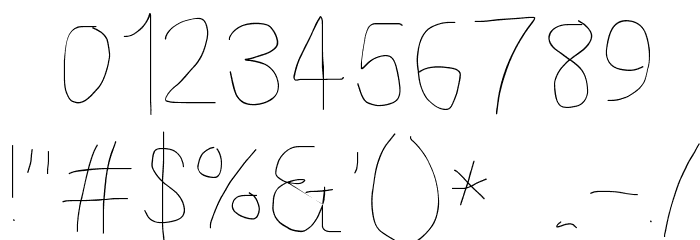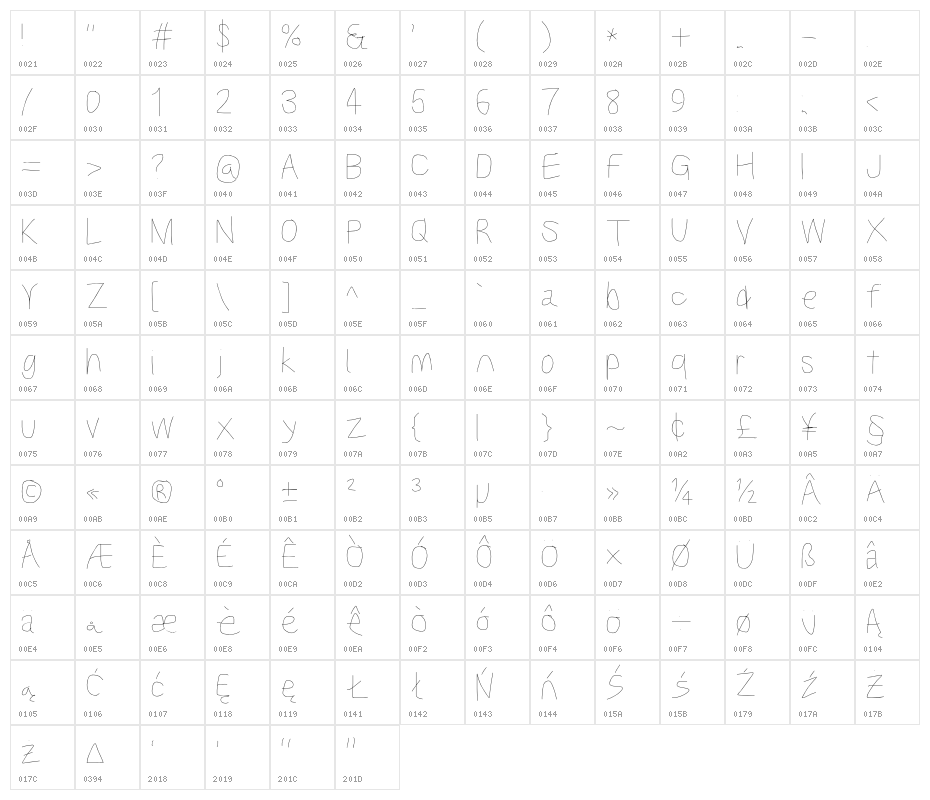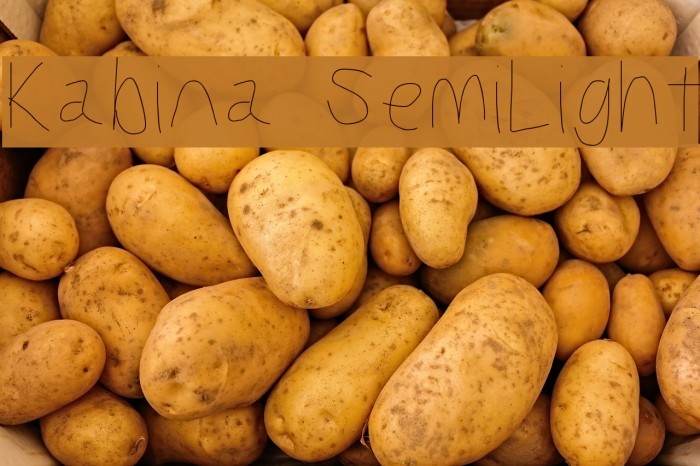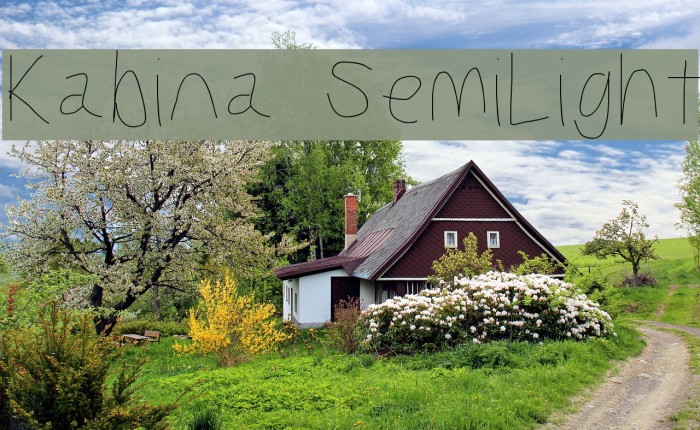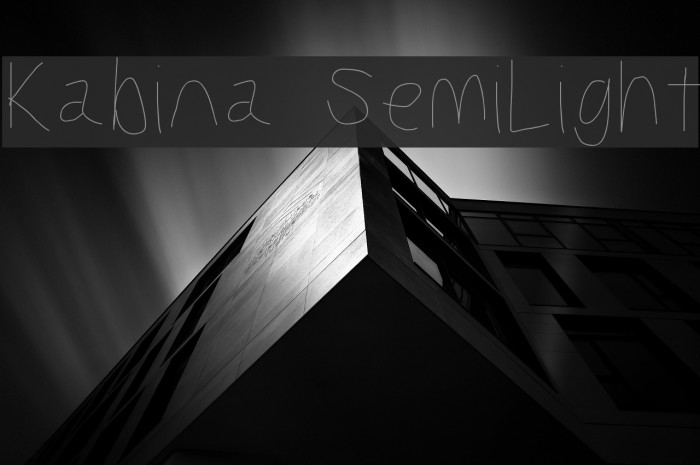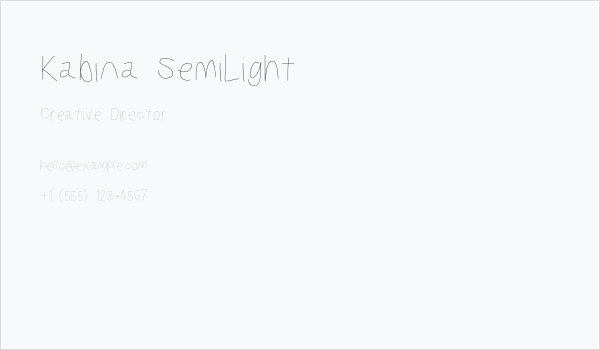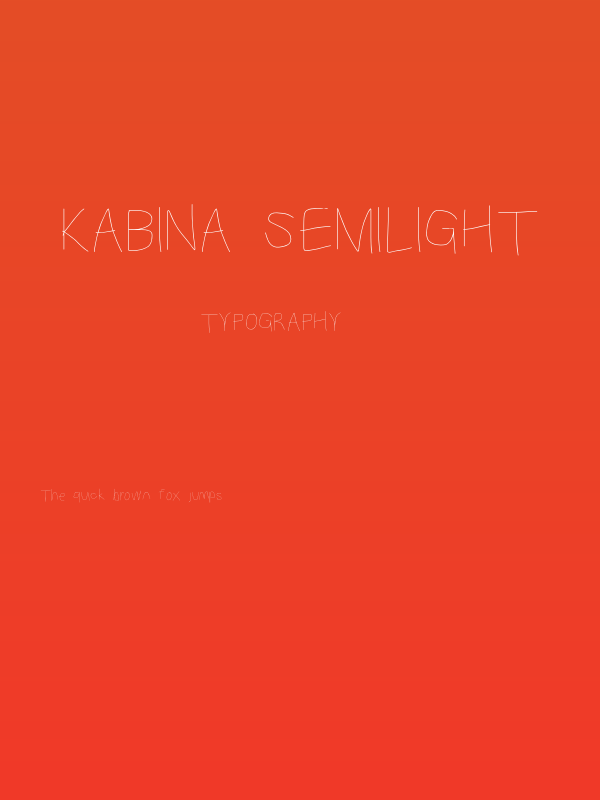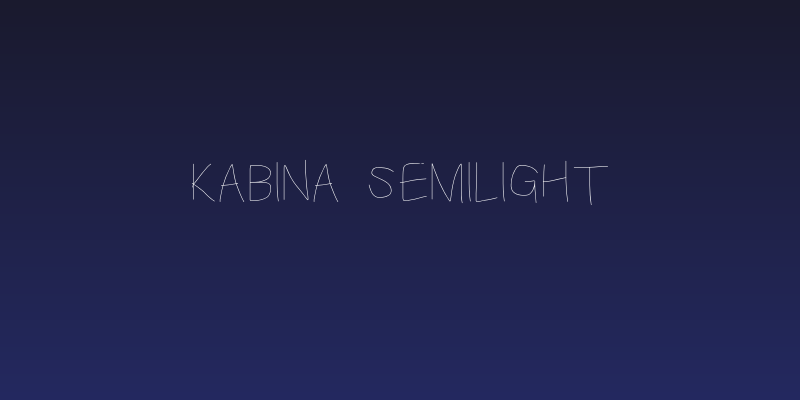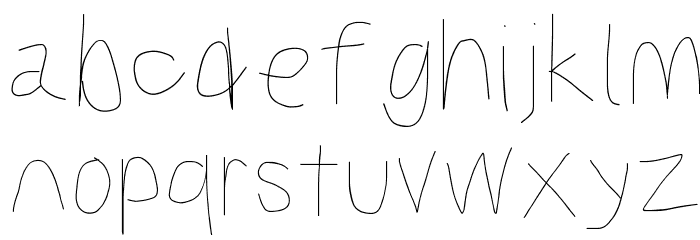
Kabina SemiLight Font
Kabina SemiLight Description
This font features a clean, minimalist design with a handwritten style. The characters are thin and elongated, giving it an airy and light appearance. The uppercase letters are tall and narrow, while the lowercase letters maintain a consistent flow with subtle curves. The numbers are straightforward and align well with the overall aesthetic. Special characters are simple yet distinct, complementing the font's overall look. This font is ideal for projects that require a personal touch without sacrificing readability.
| Use Case | Logos, Headlines, Casual text |
| Proposed Projects | Ideal for personal branding, invitations, greeting cards, and casual digital content. |